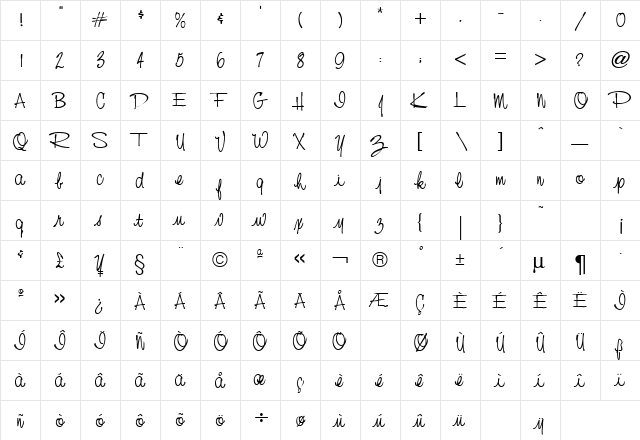
Nevison Casual Script Regular
Design Context for Nevison Casual Script Typeface
Nevison Casual Script brings a calligraphic fluidity to the page — its connecting strokes and expressive curves give it an unmistakably human quality.
Font Pairing: Combine Nevison Casual Script with a simple geometric sans for maximum contrast — the tension between flowing curves and clean structure is a classic typographic pairing.
Pro Tip: Use Nevison Casual Script for short runs of text — names, titles, or taglines. Extended body copy in script faces tires the eye quickly.